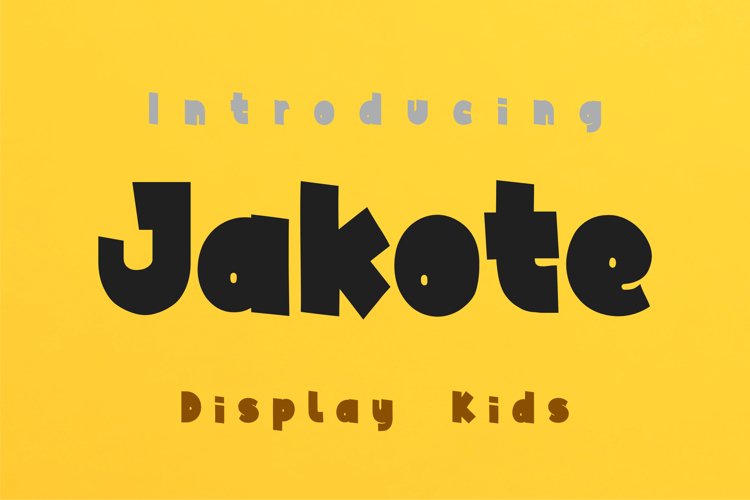
Jakote
Jakote is an incredibly quirky and sweet display font. Whether you use it for cartoon-related designs, children’s games, or just any creation that requires a lovely touch, this font will be an amazing choice.